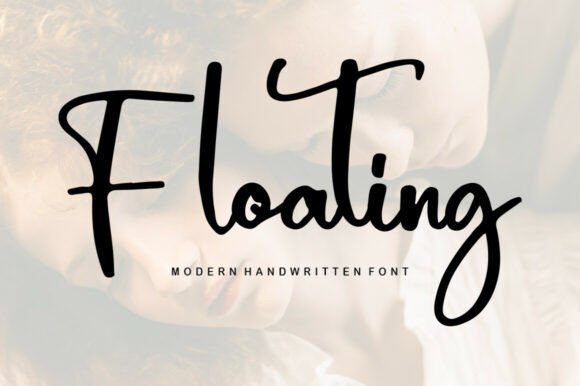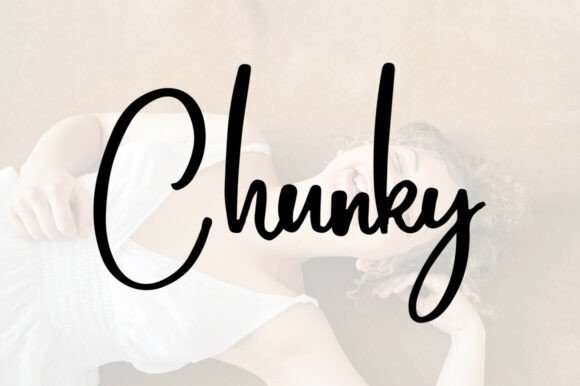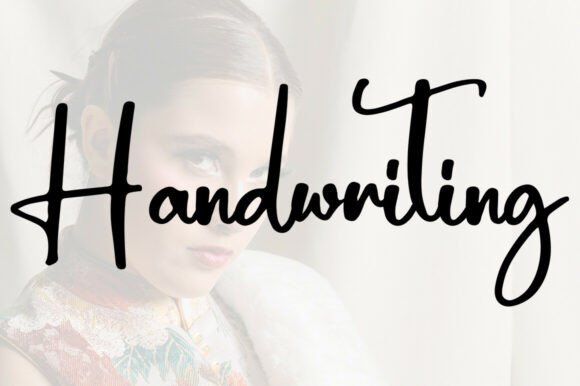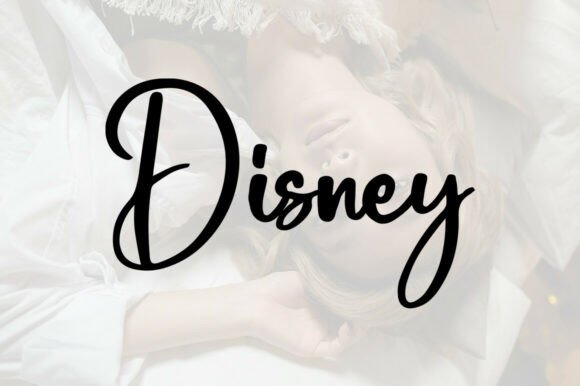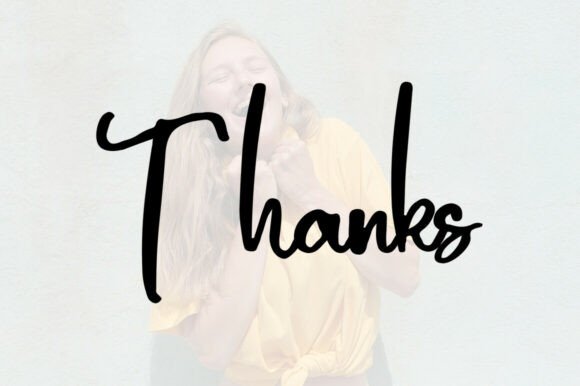
The Magic of Handwritten Fonts: Unveiling the Beauty of Floating Font
Have you ever stared at a beautifully crafted logo and wondered what makes it so captivating? Maybe it’s the way the letters seem to dance on the page, or the unique touch that makes it feel handmade. Whatever the reason, one thing’s for sure – a well-designed logo can make all the difference in capturing our attention and leaving a lasting impression.
For designers looking to add a touch of elegance and personality to their work, Floating Font is a game-changer. This lovely handwritten font is the perfect choice for creating eye-catching logos, branding, and quotes that stand out from the crowd. With its unique and beautiful touch, Floating Font brings designs to life, making it a valuable addition to any designer’s toolkit.
Floating Font Key Features
- Unique Characteristic: The font features a unique floating effect, where the letters appear to be suspended in mid-air, creating a visually striking effect.
- Font Style: Available in both uppercase and lowercase letters, with a range of font styles, including bold, italic, and regular.
Designer Review: Floating Font
Overall, I’d say “Floating Font” is a decent font library, but it has its quirks.
- Great for creating a sense of depth and dimensionality
- Versatile – can be used in a variety of contexts, from minimalist designs to more elaborate layouts
- High-quality vector graphics
- Can be overwhelming if used too extensively – too much “floating” can become distracting
- Limited control over the floating effect – can be difficult to customize
- Not suitable for small text sizes – becomes too difficult to read
Overall, I think “Floating Font” has potential, but it’s not a one-size-fits-all solution. With careful use and attention to balance, it can add a unique touch to a design. However, it’s not a font library I’d use for every project.
Floating font is commonly used in:
- Graphics and illustrations
- Websites and landing pages
Q: What are the benefits of using Floating Font over traditional font technologies?
Floating Font offers several benefits, including improved font rendering accuracy, reduced font size variability, and enhanced font customization options. Additionally, Floating Font is optimized for web and mobile applications, making it an ideal choice for responsive web design and mobile-first development.